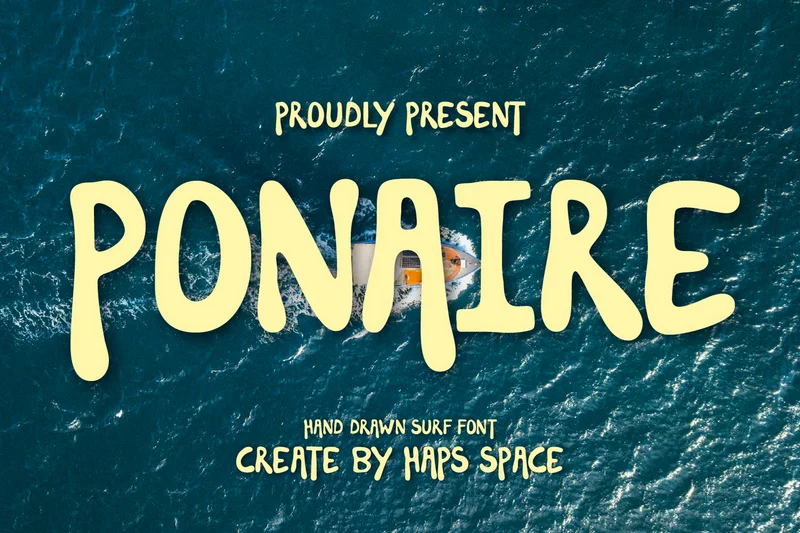
Ponaire – Hand Drawn Surf Display
Introducing Ponaire, a bold and carefree hand-drawn surf font that captures the spirit of the ocean and summer adventure. With its organic curves and playful strokes, Ponaire brings a relaxed, coastal energy to your design projects.
Perfect for surf brands, beach-themed posters, travel magazines, packaging, or any project that wants to feel fresh, fun, and full of sunshine. Its friendly hand-drawn character makes it ideal for creating a warm and authentic atmosphere.
Ponaire also supports multilingual characters, making it versatile for various creative needs. Ride the wave of creativity with this unique surf-inspired font!
Unique Letterforms